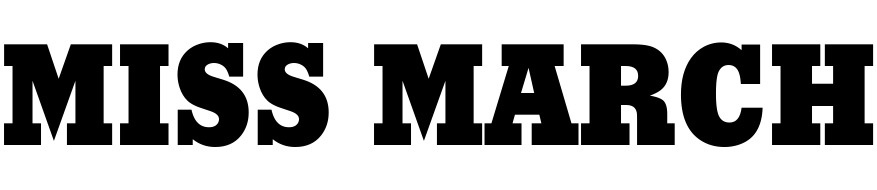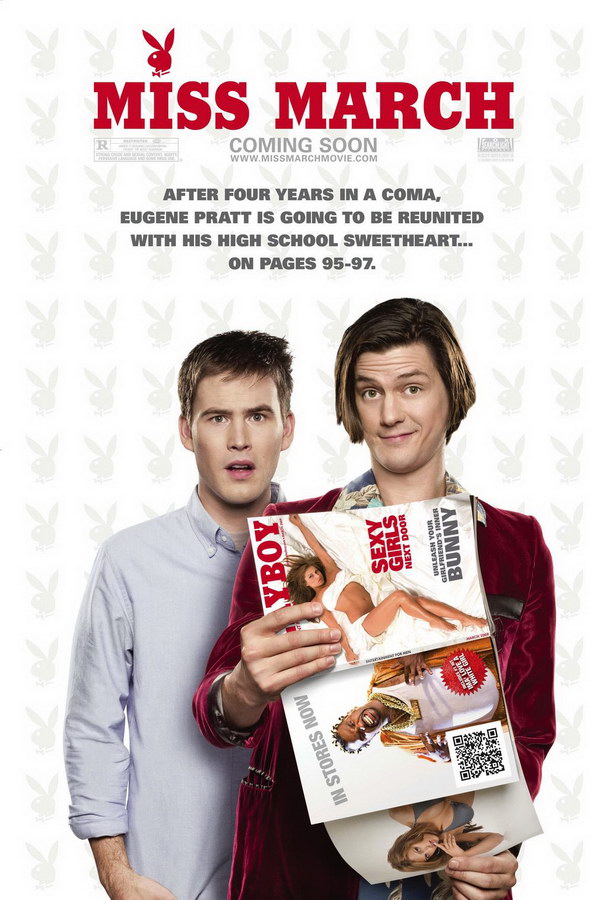
Miss March Font
ComedyMiss March is a 2009 comedy film about a man who wakes up from a four-year coma to discover his girlfriend has become a Playboy centerfold, and he sets out on a wild road trip with his best friend to find her.
The movie title in the poster is designed based on Stymie Black font, created by Morris Fuller Benton for ATF in 1931. Stymie is a commercial font and you can find more details about it here.